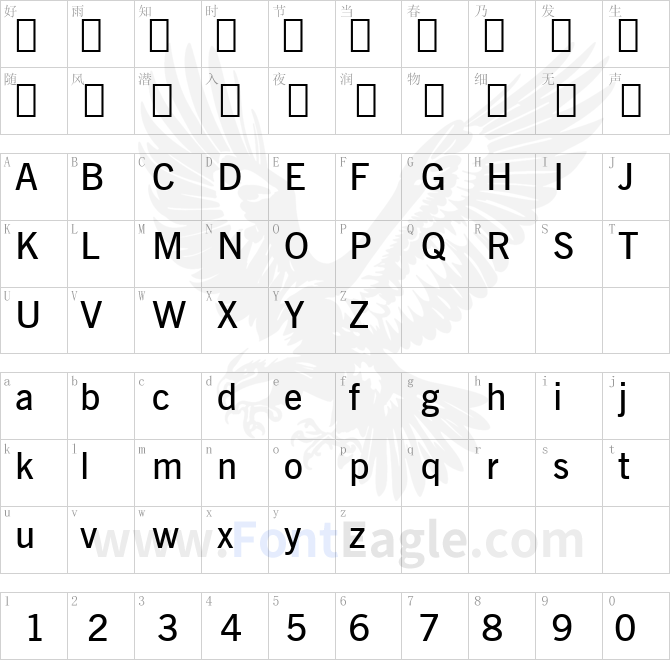
NewsGoth Dm BT Demi.ttf Base Font Information
- Font name:NewsGoth Dm BT
- Font Subfamily:Demi
- Font Subfamily ID:News Gothic Demi, Gothic 731
- Font Full Name:NewsGoth Dm BT Demi
- Postscript:NewsGothicBT-Demi